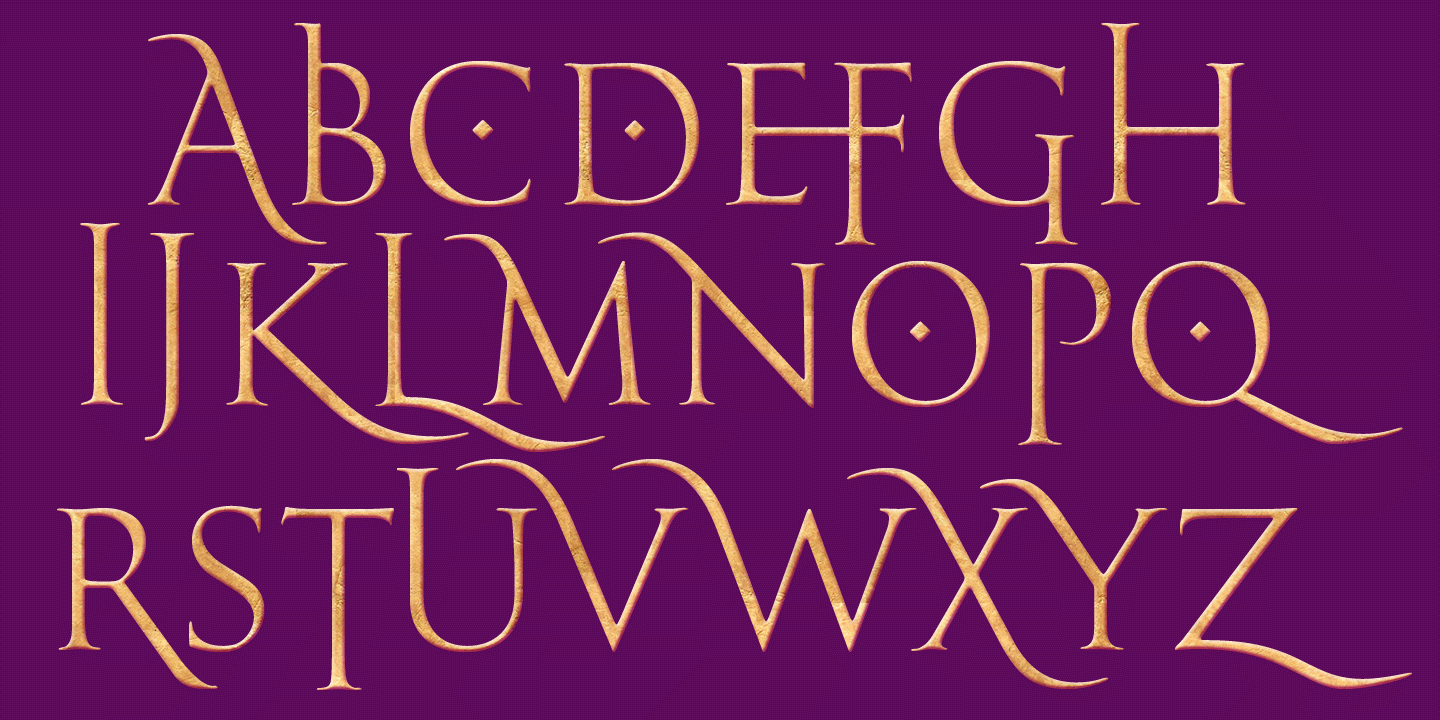
Goudy Trajan Pro Font Free Download is a classic serif typeface inspired by ancient Roman inscriptions, perfect for projects requiring a timeless and authoritative look. Its elegant letterforms and sharp serifs make it ideal for branding, editorial designs, movie posters, and formal invitations.
Whether you are crafting luxury logos, prestigious certificates, or sophisticated book covers, Goudy Trajan Pro Font Free Download adds a sense of history and refinement to your work. Its clarity and beauty ensure it shines in both print and digital media.